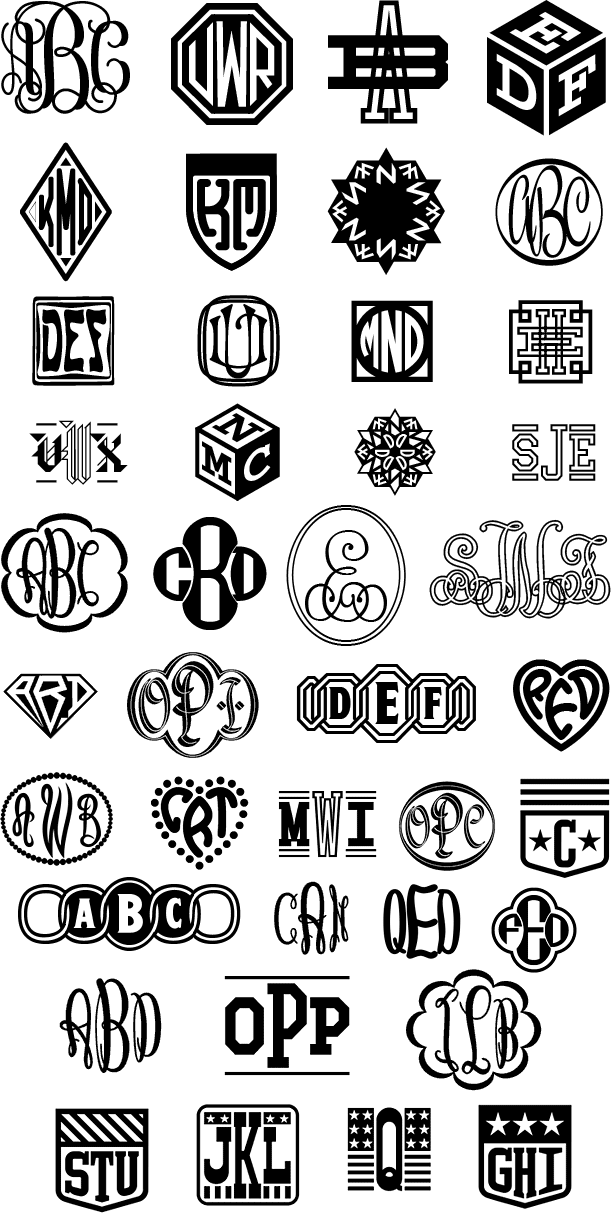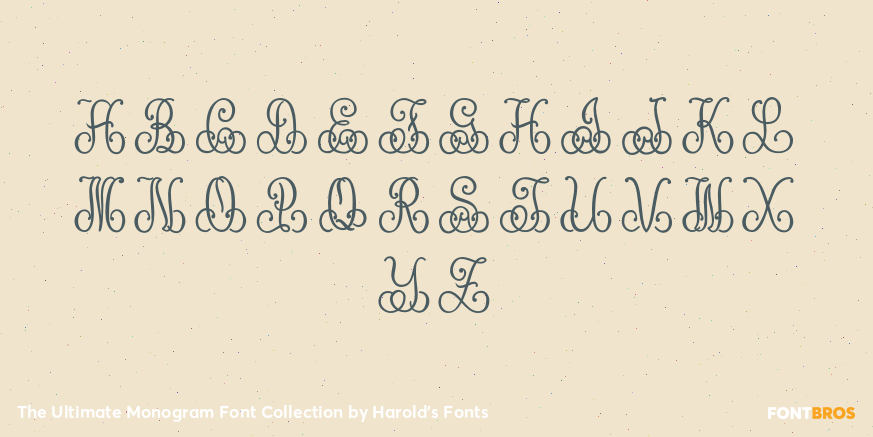
The Ultimate Monogram Font Collection
Font Bundle by Harold's Fonts
The ultimate in Harold's monograms collections, this 26 font value bundle contains all the fonts from volume 1 and 2! Create a variety of custom typable 1-, 2-, or 3-letter monograms.
Fonts Included: American Monograms, Baronial Monograms, Blockograms, Bracelet Monograms, Carmen Monograms, Circle Monograms, Clover Monograms, Collegiate Monograms, Collo Monograms, Empress Monograms, Entwined Monograms, French Monograms, Gem Monograms, Harold's Original Monograms, Heart Monograms, Hexagrams / Octograms, Keepsake Monograms Oval, Lace Monograms, Roman Monograms, Script Monograms, Shield Monograms, Snowflake Monograms, Superfan Monograms, Vine Monograms and Willow Monograms.